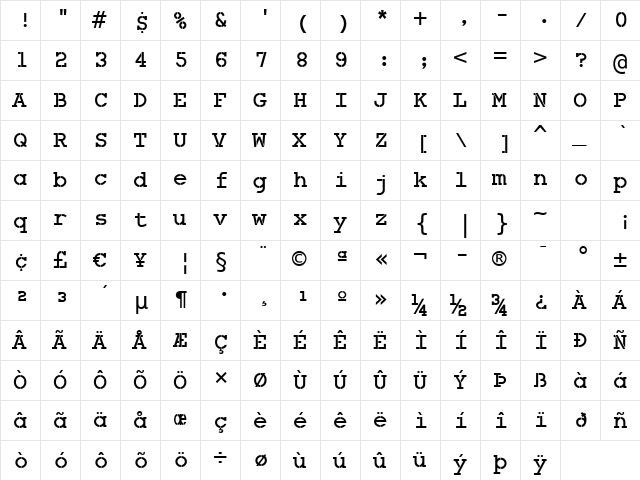
Combat Ready BTN Regular
Design Context for Combat Ready BTN Typeface
Combat Ready BTN draws on military and industrial lettering traditions, with forms that communicate strength and precision.
Designed for tactical branding, military-inspired apparel, action game UI, and utility-focused signage.
Pro Tip: Use Combat Ready BTN at medium-to-large sizes where its utilitarian structure can be appreciated — the character detail gets lost at small sizes.